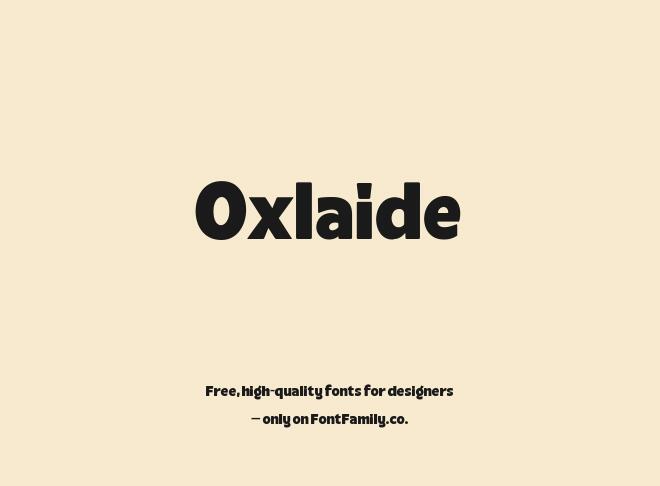
Oxlaide Font
Oxlaide Font, a creation of the Designers Foundry, is a modern and geometric typeface that radiates an air of boldness and confidence. With its sharp edges and clean lines, it perfectly captures the spirit of contemporary design aesthetics. Released in 2021, Oxlaide Font has quickly become a favorite among designers for its versatility. It bears a striking resemblance to sans-serif fonts but stands out with its unique geometric structure. Ideal for display use, it adds a robust and dynamic feel to headlines, posters, branding, and more. Its boldness makes it a great choice for anyone looking to make a strong impression. Despite its modern appearance, it retains a classic sense of readability, making it not just visually appealing, but also functional. Choose Oxlaide Font to give your design project a modern, bold, and geometric touch.